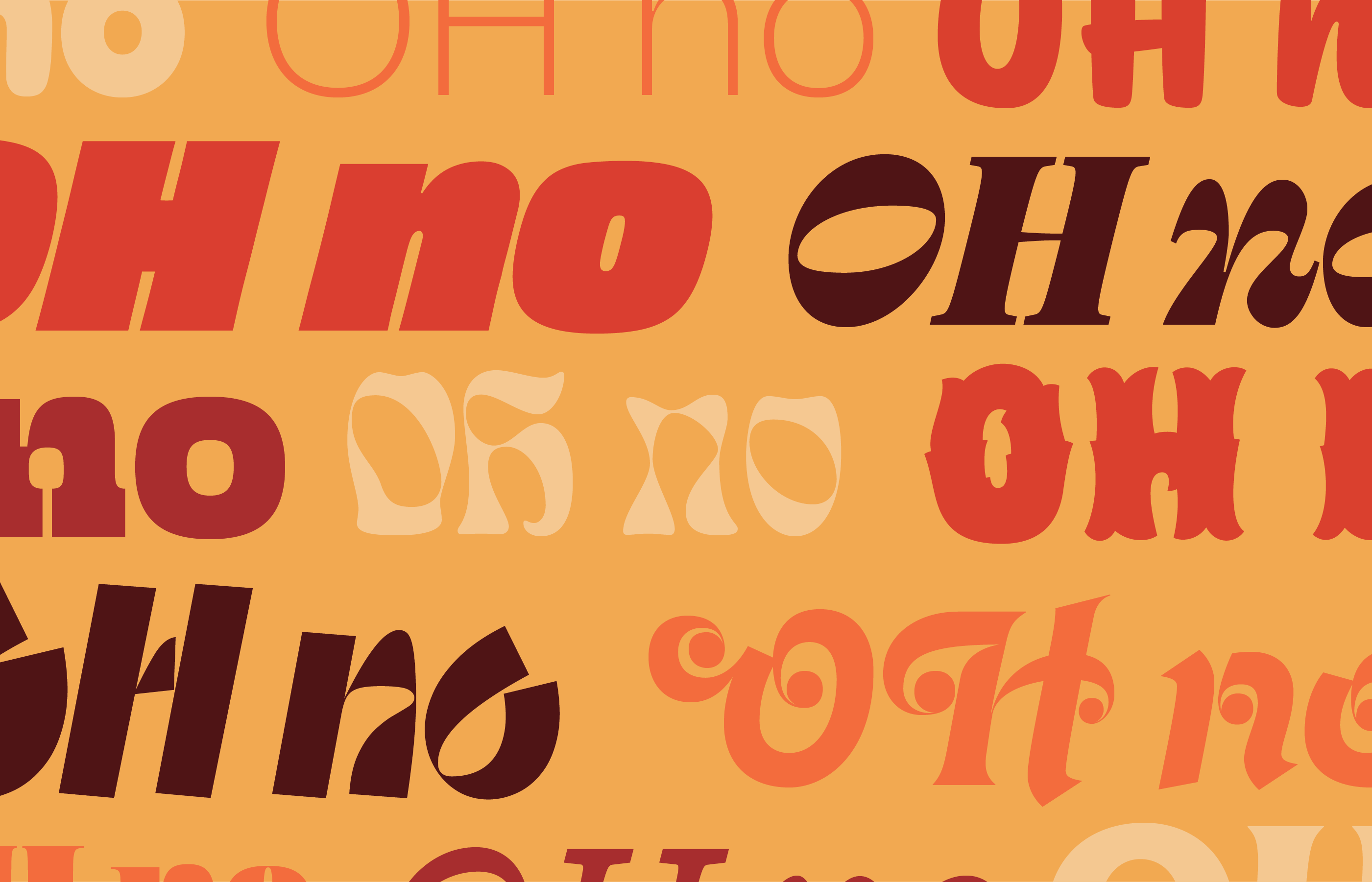
Making Type: James Edmondson of OH no Type Co.
In years to come, I think we’ll look back and say James Edmondson was one of the great type designers of this era. Heck, we don’t even have to wait to do that, I’ll just go ahead and say it now. His distinct flair, championing expressive type, has made its mark on the design landscape over the past decade. From exuberantly stylized and retro-inspired bangers, to workhorse families, OH no Type Co. has become a go-to for many designers.
If you’ve met James or follow him online, you’ll know he’s a remarkably chill, multi-talented human. I love seeing all his creative endeavors pop-up on social media from 3D printing to woodworking, and I jump at the chance to catch any of his excellent conference talks. I’m not convinced there’s anything creative he can’t do!
That’s probably enough of me gushing, I’m so glad to get to ask him a few questions for this next post in the Making Type series.
What was the initial spark that got you into type?
The first was very literal. I got a set of calligraphy pens when I was about fourteen that came with an instruction book on them. That book taught me how ink flowed out of a broad edged pen. Once I saw the magic of that, I was hooked and became really interested in contrast and just being able to replicate the forms. I’d doodle serif letterforms and that sort of thing.
That was the initial spark, but more broadly, I remember working on all sorts of creative projects as a kid: like recording a song, doing a drawing, making something out of cardboard etc, and wanting to look at it or listen to it over-and-over. Play with it! I would get so stoked on the things that I’d made like oh my god I can’t believe it was possible to do this.
So I think that feeling of just being so thrilled and excited by what you’ve made is really the thing that still makes me excited to create things.
Congrats on the recent 10 year milestone! What are you looking forward to for the next decade?
I’m going to be honest with you, I’m really looking forward to paying off my mortgage. I think in the next ten years I got a great chance to get it down to just the property taxes. That would give me a whole lot of financial freedom, and I’m very much looking forward to that.
Professionally, I’m looking forward to bolstering our catalog — making it more expansive and getting it to be as great as it can be. That and taking good care of our employees along the way.
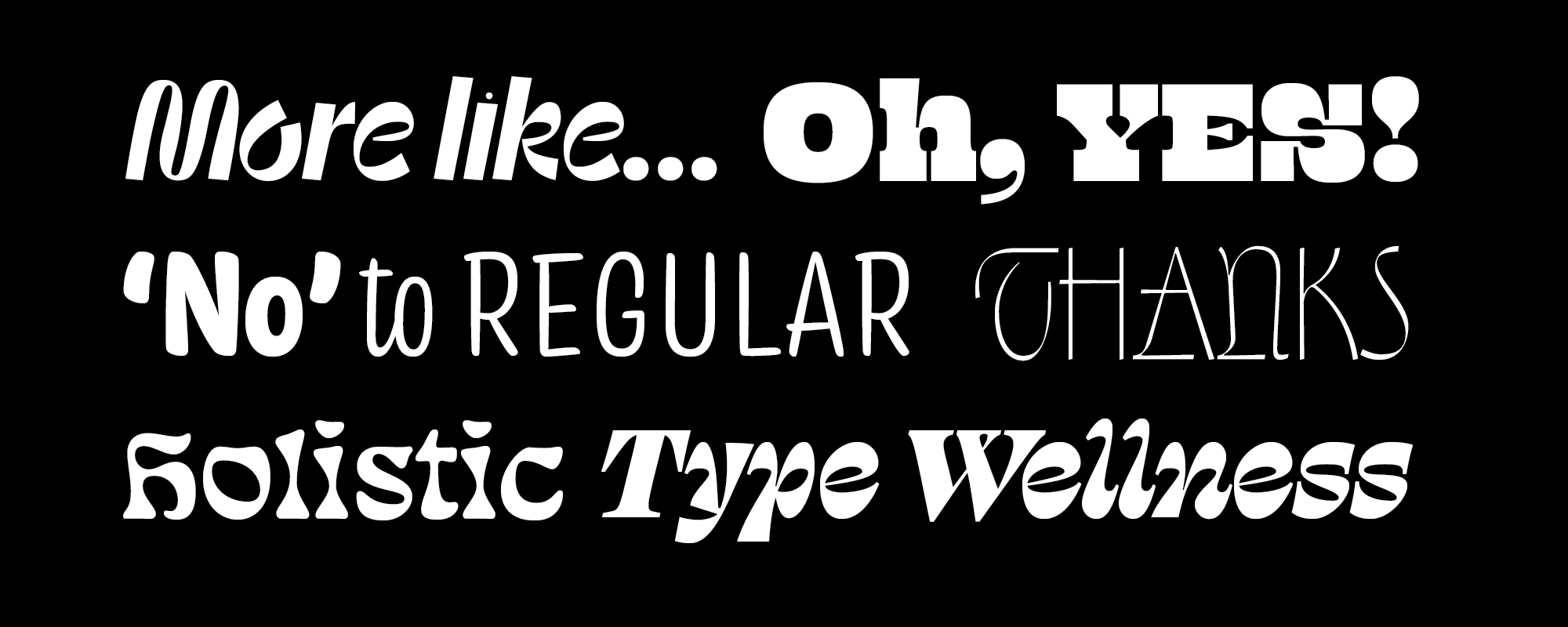
You recently released your type design book, with an absolute wealth of knowledge. How was the process of writing this?
The process of writing was pretty terrible! I do like writing, I guess. I don't like editing. I really don’t like trying to find all the images. Luckily, I had help with the design side of things. I designed a couple of sample spreads and then the publisher, PA press which is owned by Chronicle Books, assigned a very talented book designer to flesh it all out. Natalie Snodgrass — she did a terrific job.
So yeah it was difficult. But I’m thrilled to be done with it.
OH no has built such a distinct style, and you included a lot of your sketches in the book which are so packed with character. I’m curious, do you prefer the analog sketching part or bringing type to life digitally?
Honestly, I think I prefer bringing things to life digitally because it’s so fast. I really love to go fast, and I love to be able to type with something. I love that feeling of being surprised by the texture, or from putting glyphs into a new sequence to make a new word. That part is really, really fun.
The analog sketching is fun too, but it can be a drag when you’re like oh, I just want to get this idea out. I’m limited by the tools in a way, because I can’t quite operate at the speed that I want to. Digitally there’s less limitations on your speed. Sometimes I just go completely digitally because I’m pretty comfortable there.
In the beginning I always had to sketch things out by hand first, and now I still like to but it’s not as necessary as it once was. Sometimes I want to force myself to do it sort of as an act of discipline, because there can be more surprises there than when you’re working purely digitally. You can make mistakes a little more easily and that can lead to the surprises.
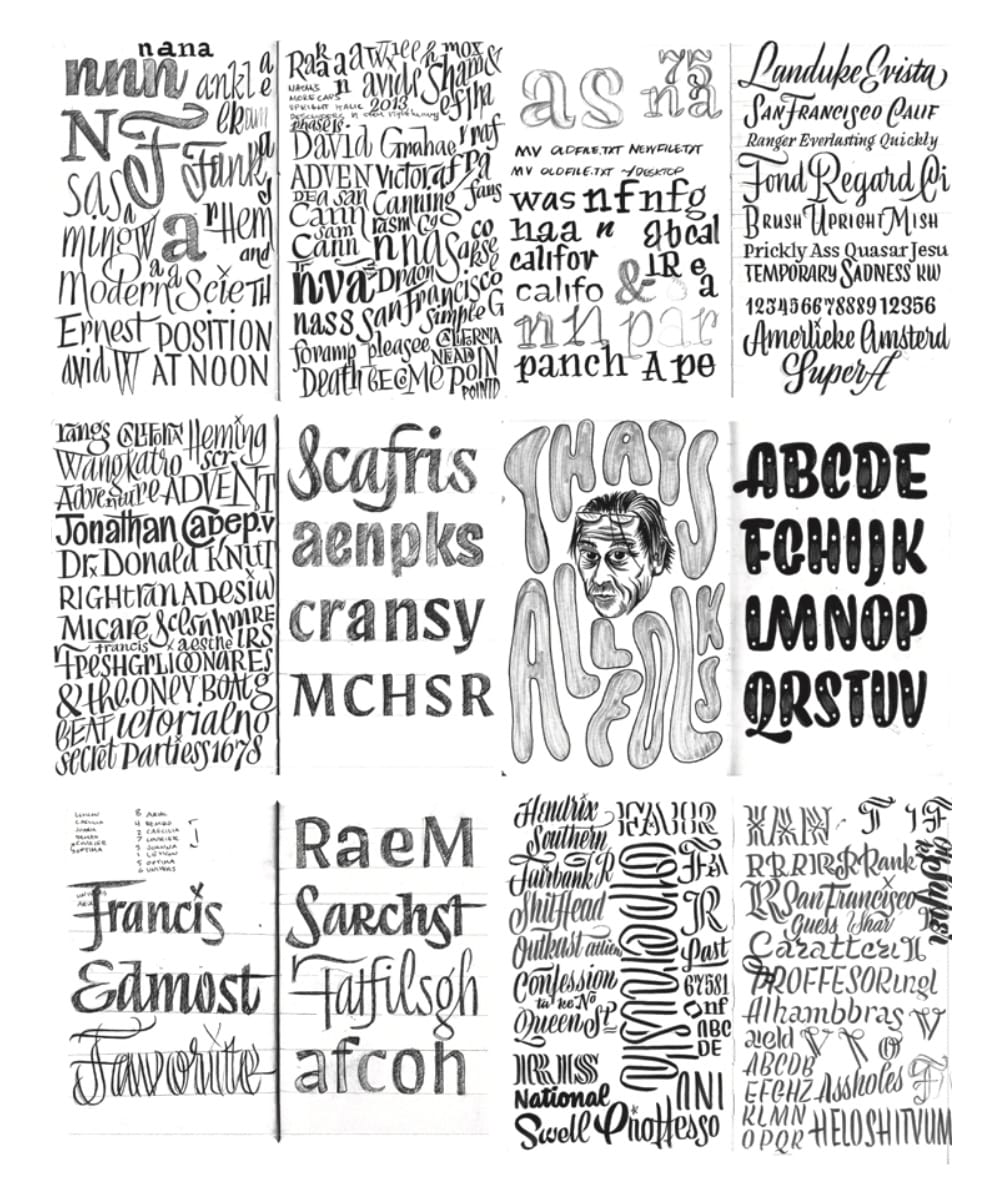
Do you prefer looking to historical references for new designs or sparks of inspiration from your environment?
Between the two I like inspiration from my environment or imagination. Maybe my imagination is within my environment. Often that is going to lead somewhere that’s a little bit more interesting or a little bit more new feeling or unique.
But I like both, and I do plenty of both. You kinda have to operate from something historical just so people can read it, you know? So there’s always going to be some amount of that at the end of the day.
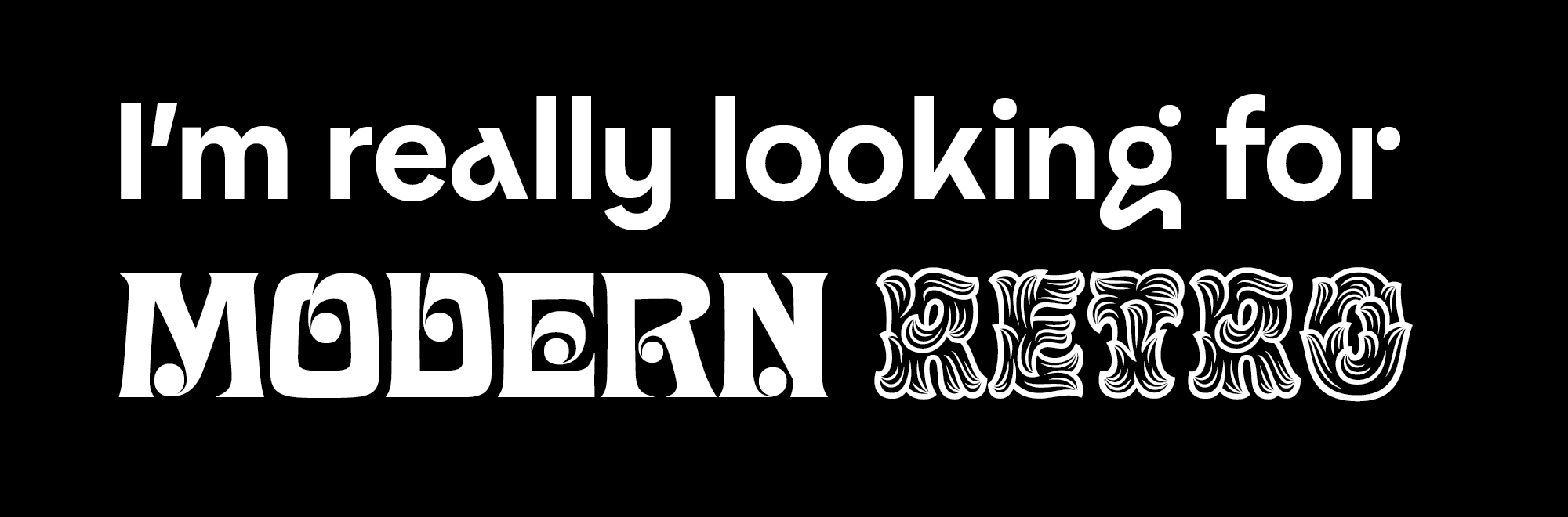
Having made many variable fonts and some extremely expressive ones, how do you find the technology influences how you approach type design?
I am definitely thinking about how I’m going to vectorize something, how those vectors will move across a design space. I’m trying to avoid putting anchors on the diagonals and stuff like that, because I know that can be problematic in the variable world. But for the most part, I try to not let the tools or the digital limitations impact what’s happening with the design. Obviously the the technology is there to support the design that you want to do and that’s the way it should be.
I think now we’re really thinking about what separates us as a foundry. We’re really capable of doing these bigger families that have a lot of styles and are variable in nature. Our clients and customers are responding to those bigger families, so yeah, we'll keep going there. Plus variable fonts are a great way to pack all that stuff into a very tidy little package.
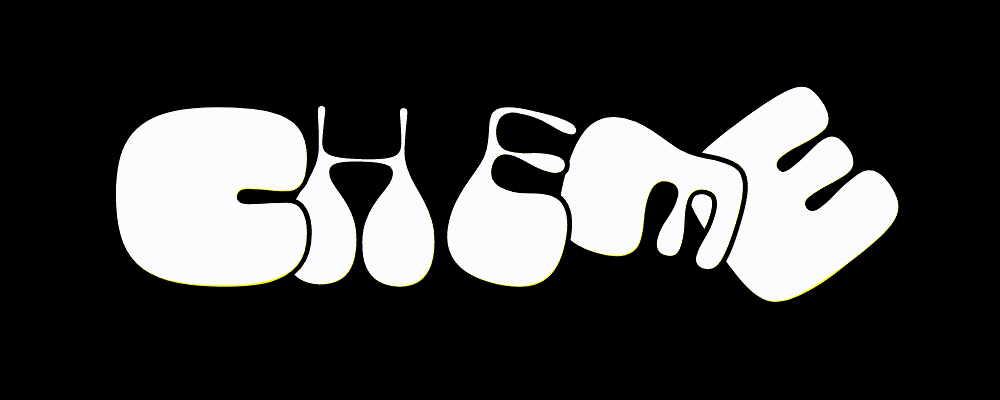
How do you stay creatively satisfied?
I’m always jamming on something in addition to type, like building furniture or messing around with 3D modeling and printing. I do a ton of old school grocery style signs, like for wrapping presents, or drawing on the glass in our garage bar. I do so much creative stuff that I never really talk about too, or show on social media, because it’s often for school. I do a lot of volunteering for my daughter's elementary school, that’s really fun. I love that I get to do the t-shirts for those events and different things for the teachers.
There’s all sorts of these little projects that are fun and creatively satisfying. Over the years, I've gotten better at finding the ones where they don't offer a lot of criticism... When I have an actual client that’s saying it’s my way or the highway! I'm like, okay that’s totally fine, because I know I’m still getting my creative satisfaction out in these other areas.
I get it from music too. I still like to play guitar and bass, and I've been learning piano. There’s not always lot of time for that, but at the same time I make sure to find little pockets throughout the day to can squeeze these little things in. I like that creativity in some form is built into every day for me.